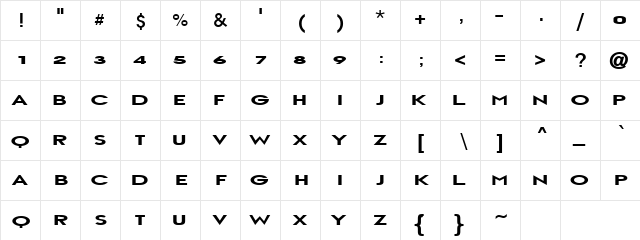
King of Bongo Regular
Design Context for King of Bongo Typeface
King of Bongo offers clean, dependable letterforms without strong stylistic allegiance, making it a practical choice for designers who need flexibility.
Pro Tip: Pair King of Bongo with a font of contrasting weight or personality to build a more expressive typographic hierarchy.